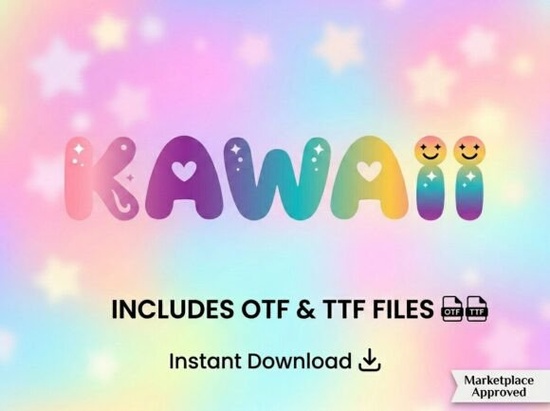
Looking for a decorative display font that actually stands out? The kawaii font is a bold, artistic typeface built for projects that need personality. It's not your average typeface every uppercase letter is crafted with unique artistic details that make it feel hand-designed. If you work on logos, packaging, social media graphics, or print-on-demand designs, this font brings something different to the table.
What Makes This Kawaii Font Stand Out?
Most display fonts either look playful or professional. This one manages to do both. The letter shapes have a creative, eye-catching quality without looking sloppy or unfinished. That balance is hard to find, especially in decorative typefaces aimed at crafters and small business owners.
Here's what you'll notice right away:
- Every letter has distinct character no generic shapes or repetitive styling
- Clean, polished finish works in professional contexts, not just fun projects
- Designed for impact built to be a headline font, not a body text option
This is the kind of typeface that makes people stop scrolling. Whether you're designing a logo for a small brand or creating product packaging, it gives your work a handcrafted feel without looking amateur.
Who Should Use This Font?
This font works well for a specific type of creative work. If you need a typeface for long paragraphs or body copy, this isn't it. But if your projects involve bold headlines, logos, social media posts, or decorative initials, it's a strong choice.
People who'll get the most out of it:
If your goal is to create designs that feel fun yet professional, this typeface delivers. It fits especially well with other kawaii-style display fonts when you want a consistent aesthetic across a project.
Is This Font Uppercase Only?
Yes and this matters before you buy. This typeface is an all-caps display font. It does not include lowercase letters. That's intentional. The design is specifically built for high-impact uses where uppercase letters shine:
- Headlines and titles
- Logo wordmarks
- Decorative monograms and initials
- Short, punchy text on products
If you need a font that handles both cases for longer text, you'd want something different. But for the projects this font is designed for, uppercase-only works perfectly. Many popular display fonts follow the same approach like bold super display fonts that focus on visual weight over versatility.
How Does It Compare to Other Display Fonts?
There are thousands of decorative fonts available, so how does this one stack up? Here's a quick comparison based on real use cases:
The kawaii font sits in its own lane playful, artistic, and designed for creators who want something that doesn't look like every other font on the market.
Tips for Getting the Best Results
A few practical suggestions from real design experience:
- Use it at larger sizes. Display fonts lose detail when scaled down. Keep it above 24pt for best results.
- Pair it with a simple sans-serif. Since this font is decorative, use a clean body font to avoid visual clutter.